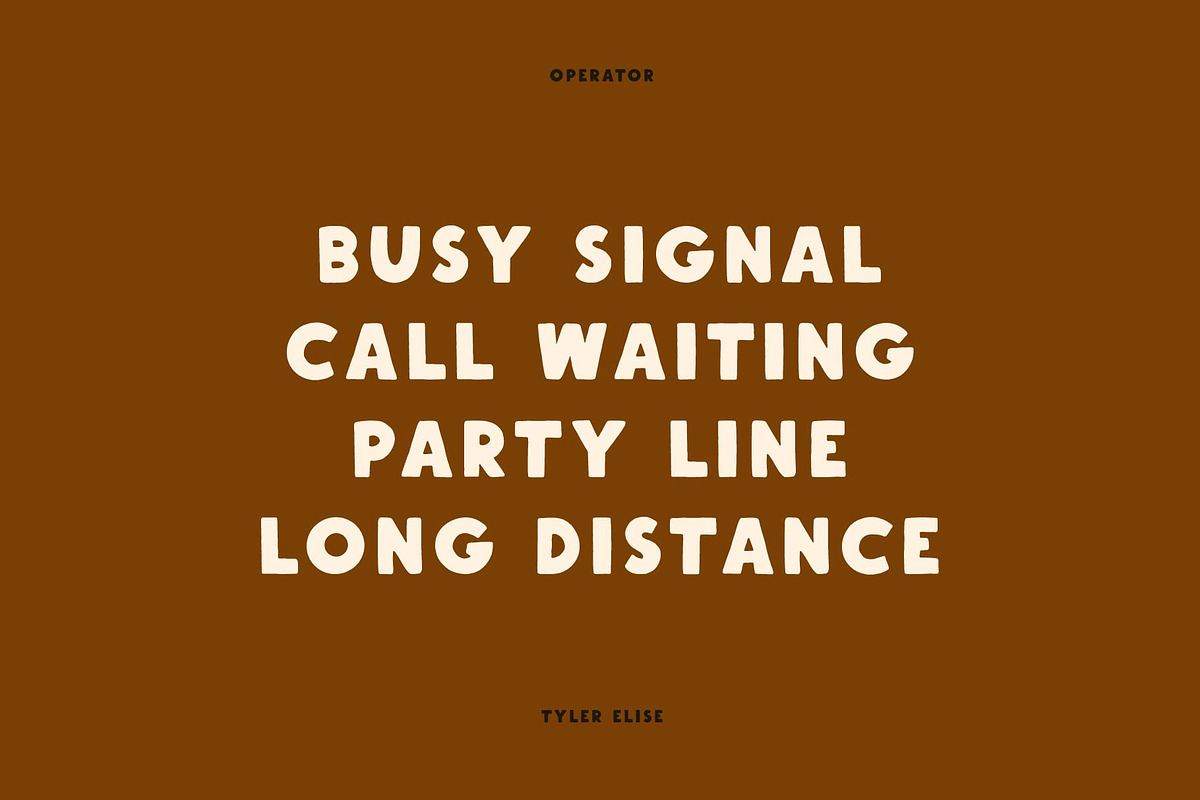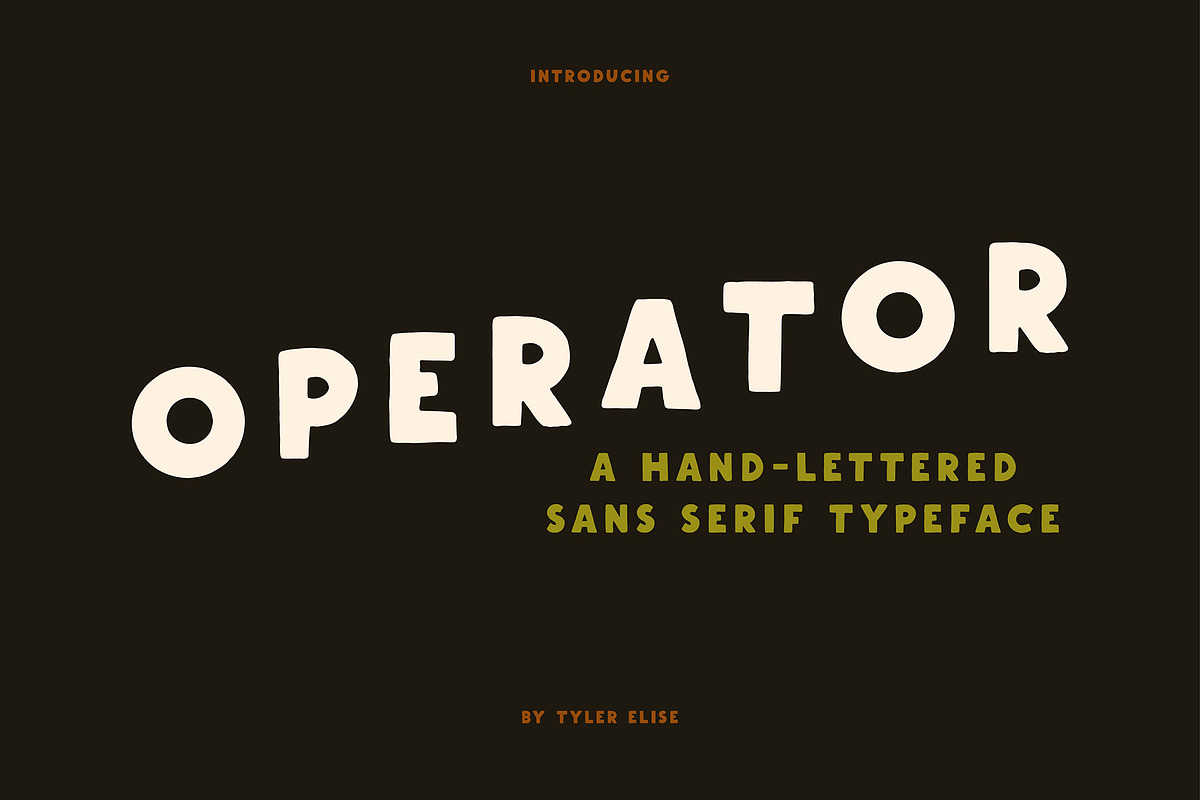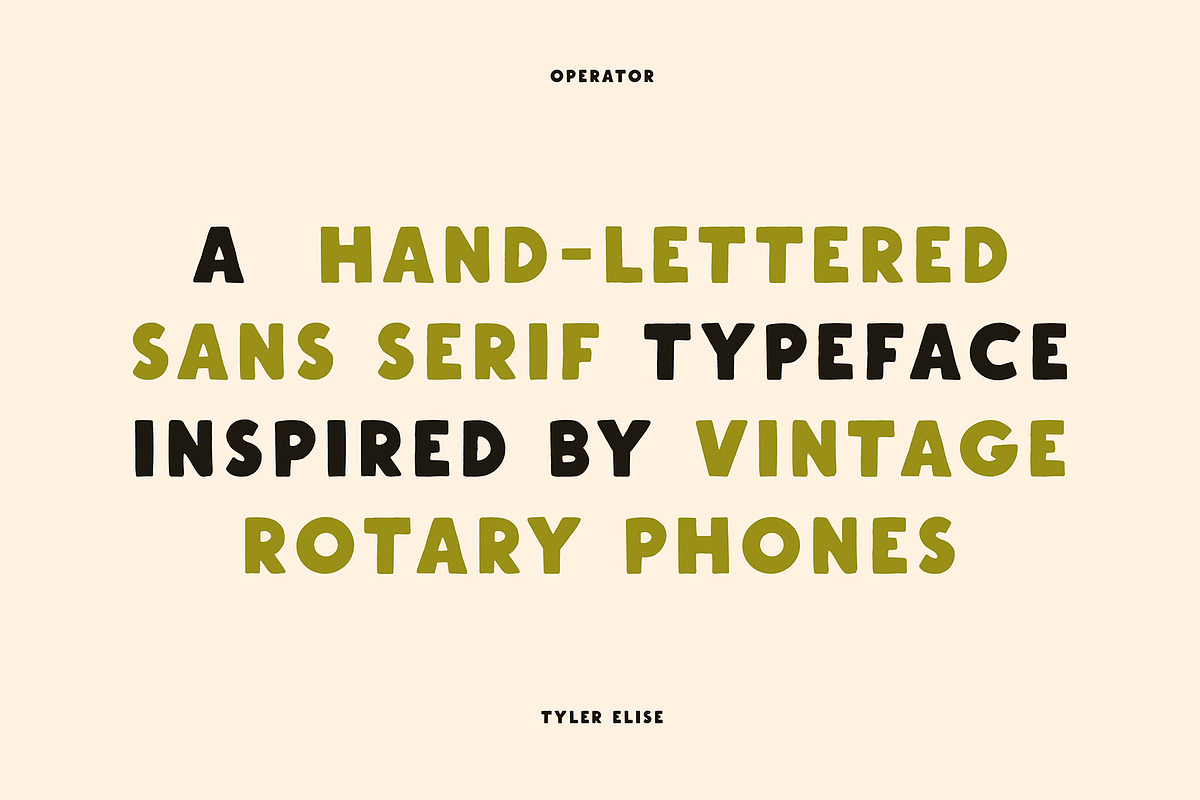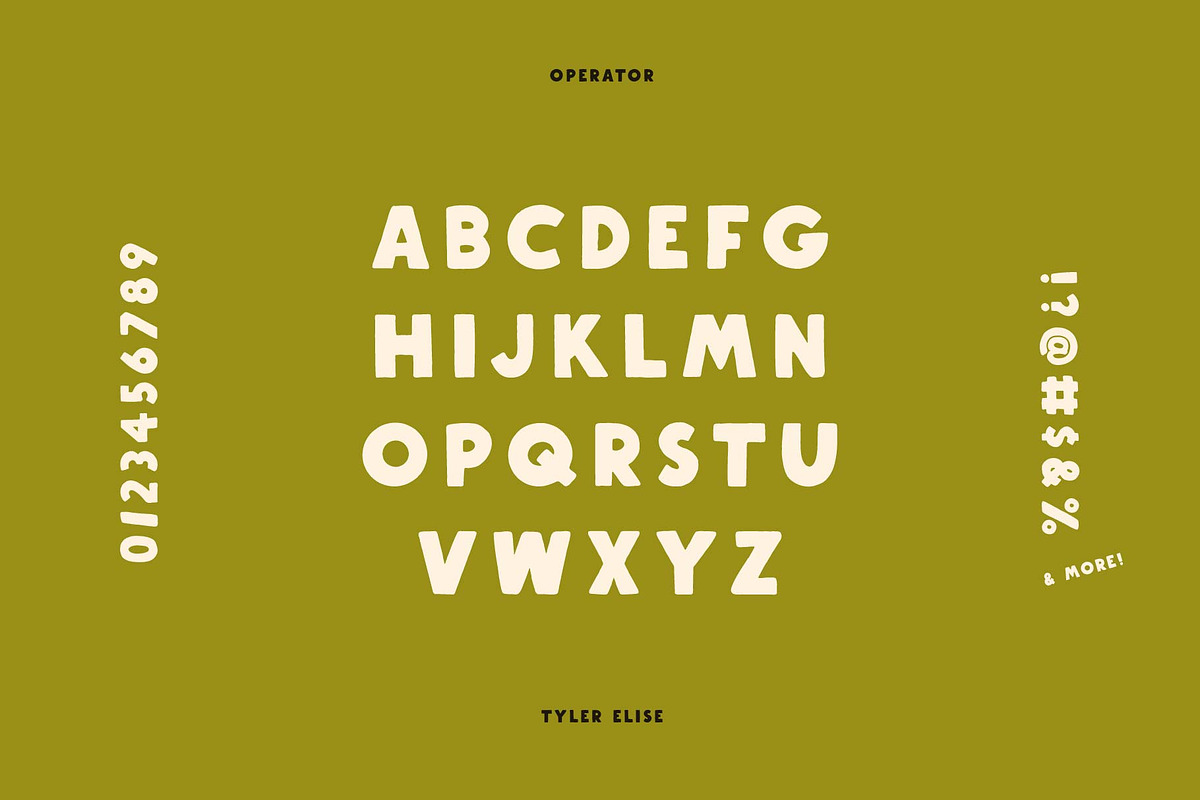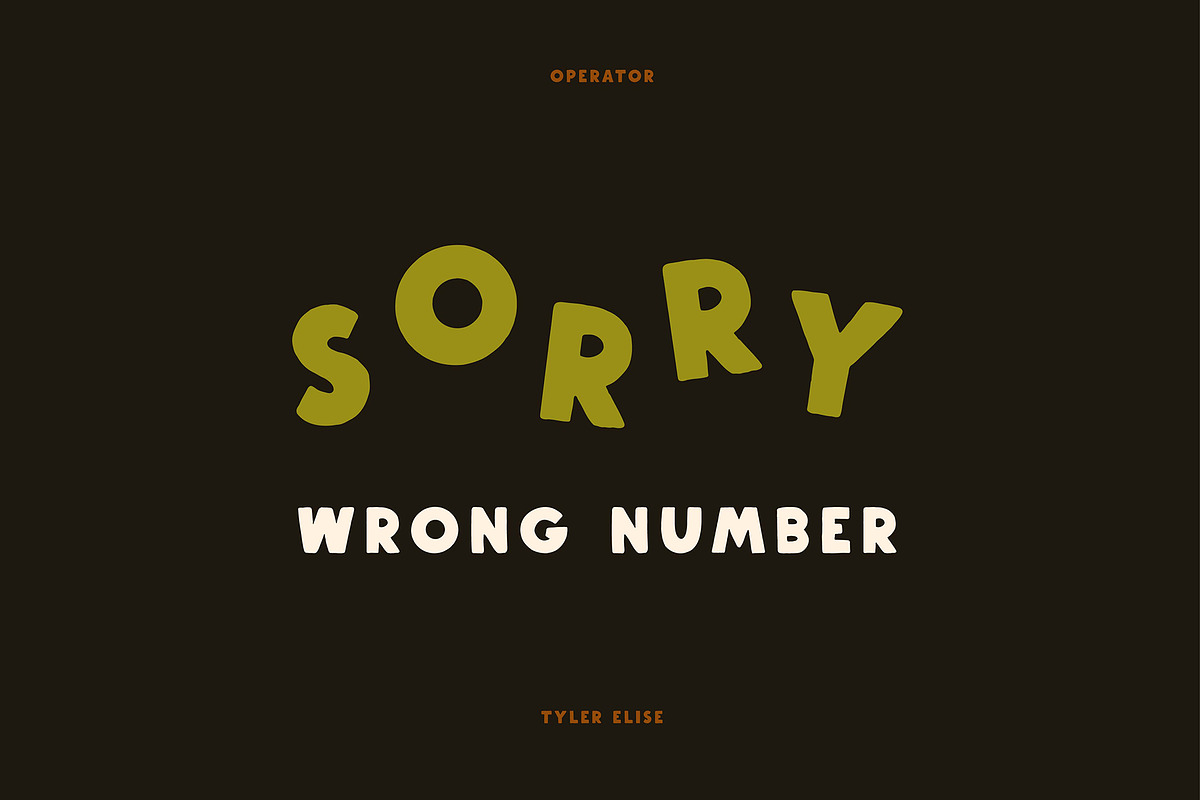
OPERATOR by Tyler Elise
OPERATOR is a chunky sans serif dialed in from vintage rotary phones, with bold letters and a no-nonsense presence that brings instant retro charm to any design project.